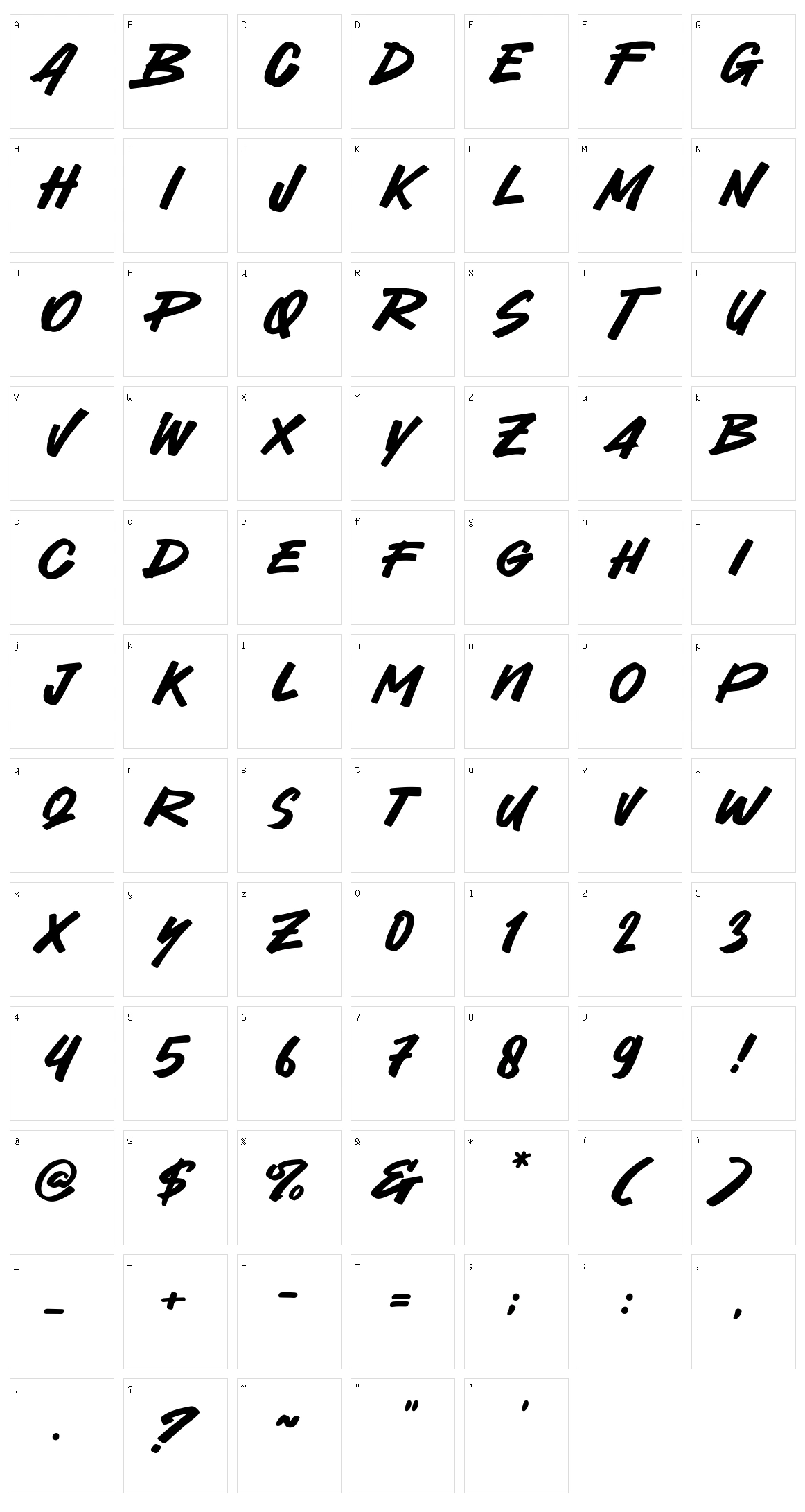
The free font Reydex is carefully designed by Khurasan, showcasing a thoughtful balance of creativity and usability and falls under the Script font style. When you download the ZIP file, it contains only 393.45 KB of font files, making it lightweight and quick to download. Please review the license details below to understand permitted usage and distribution rights. If license information is not available, we recommend using this font for personal projects only or contacting the author directly for commercial usage permissions.